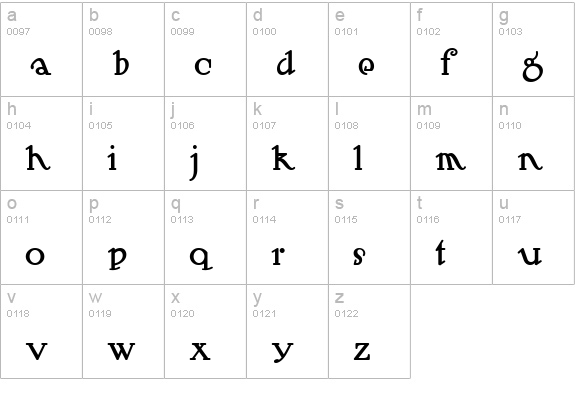
HutSutRalston Font Details
HutSutRalston font is a charming and whimsical typeface that exudes a sense of fun and playfulness. Its quirky and unique design makes it perfect for a variety of creative projects, from invitations to posters to branding materials. The font features a mix of rounded and geometric shapes, giving it a modern and dynamic look. What sets HutSutRalston font apart is that it is free for personal and commercial use. This means that you can use it in your projects without any restrictions or limitations. Whether you're a designer looking to add a touch of personality to your work or a business owner wanting to stand out from the crowd, HutSutRalston font is a great choice. You can easily download the HutSutRalston font for free at FontsMarket.com. Simply visit the website, search for the font, and click on the download button. With HutSutRalston font, you can unleash your creativity and bring your designs to life with its playful and eye-catching style.